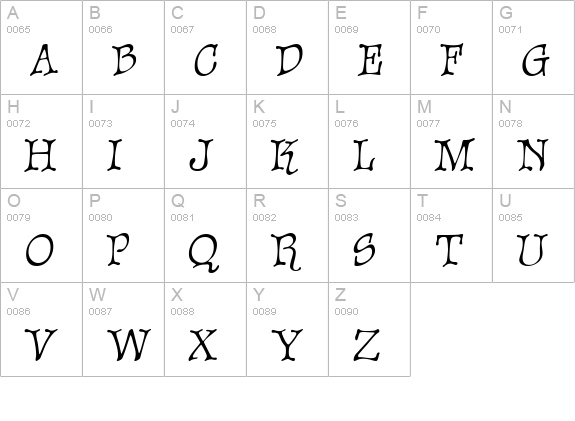
Introducing Sparrow, a captivating and versatile font that embodies elegance and sophistication. With its sleek lines and graceful curves, Sparrow effortlessly captures attention and adds a touch of refinement to any design project. This font is perfect for creating stunning logos, branding materials, invitations, and more. But what sets Sparrow apart is not just its stunning aesthetics; it's also the fact that it is absolutely free! Yes, you heard it right - Sparrow is freely available to download at FontsMarket.com. This means that you can enhance your creative endeavors without breaking the bank. Whether you're a professional designer or a passionate enthusiast, Sparrow offers an abundance of possibilities. Its wide range of weights and styles allows you to experiment and create unique typographic compositions. From delicate and airy to bold and impactful, Sparrow offers a versatile palette to bring your ideas to life. Crafted with meticulous attention to detail, Sparrow ensures legibility and readability across various mediums. Its timeless appeal makes it an ideal choice for both digital and print applications. Whether used in body text or headlines, Sparrow's clarity and distinctive character will make your message stand out. So, why wait? Experience the elegance and beauty of Sparrow font today. Simply head over to FontsMarket.com and download it for free. Unlock your creativity and elevate your designs with this remarkable font. Sparrow is the perfect blend of style, versatility, and affordability.